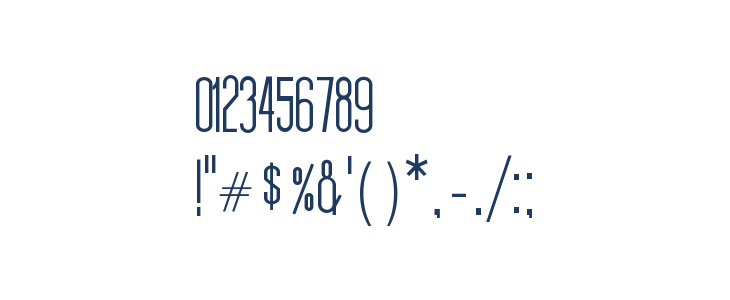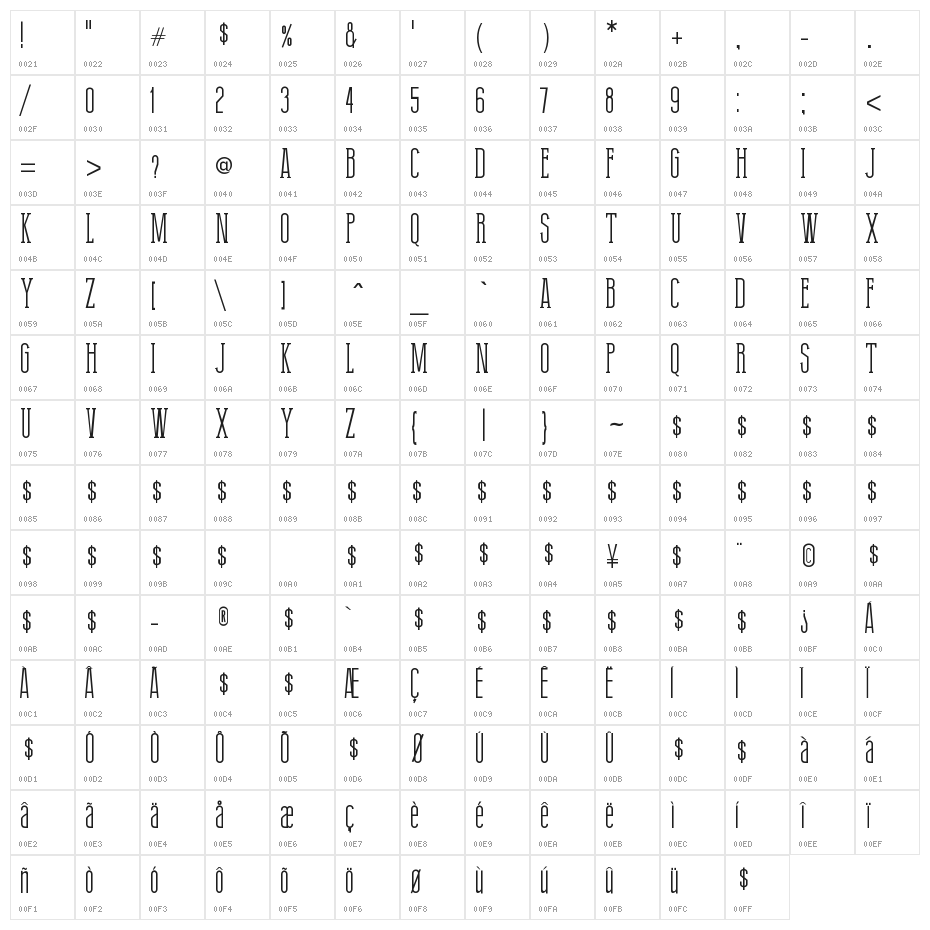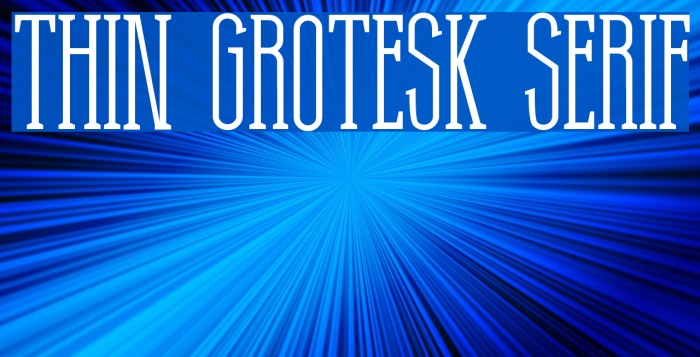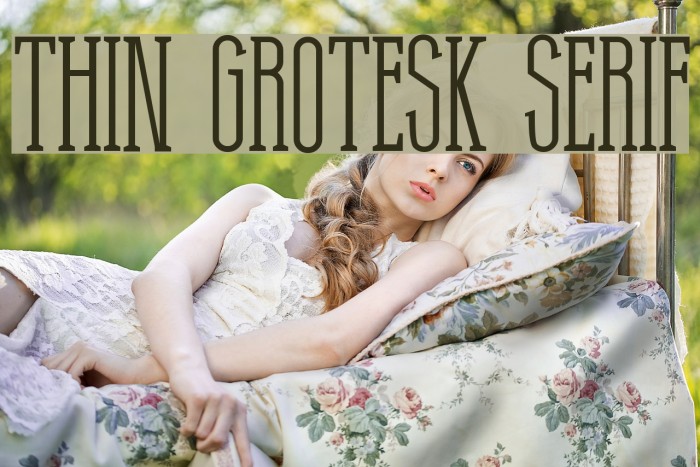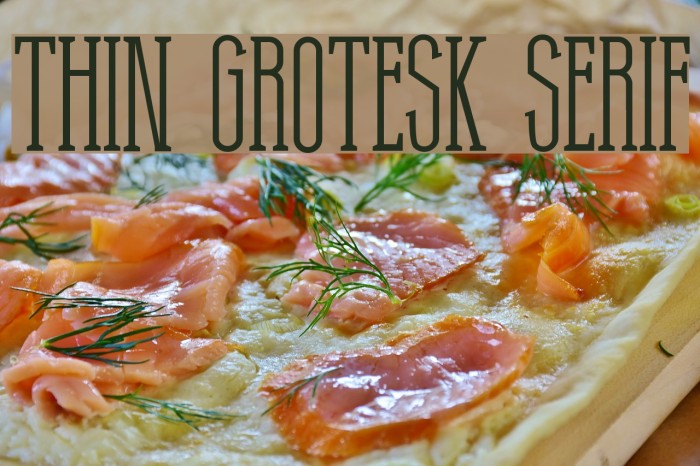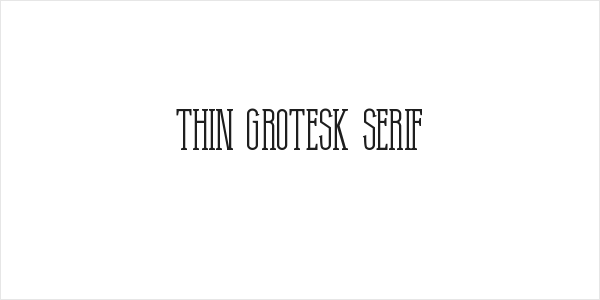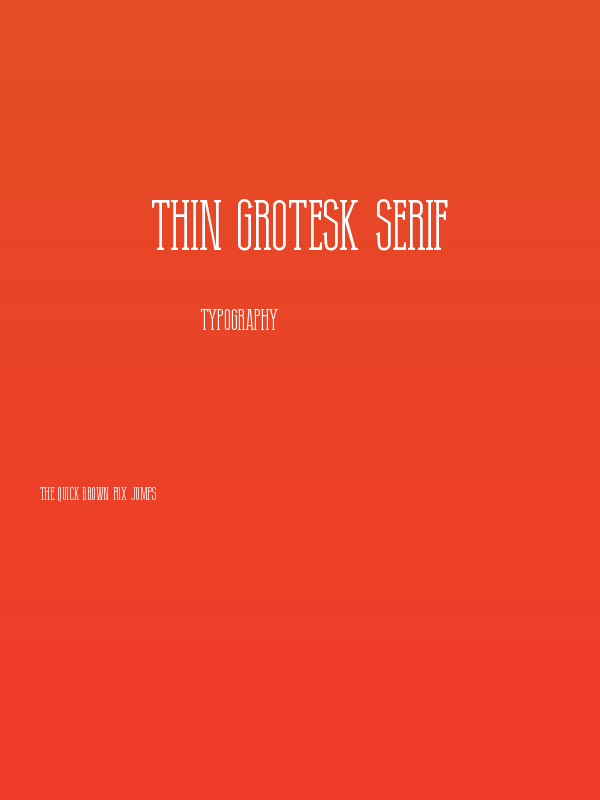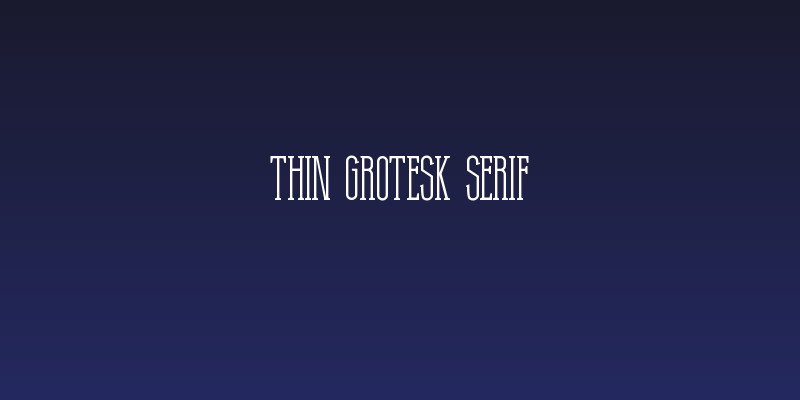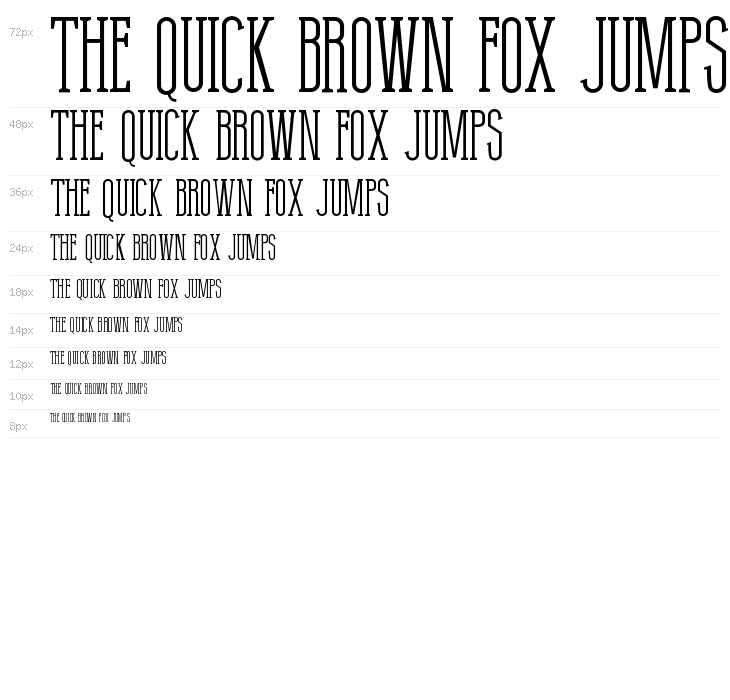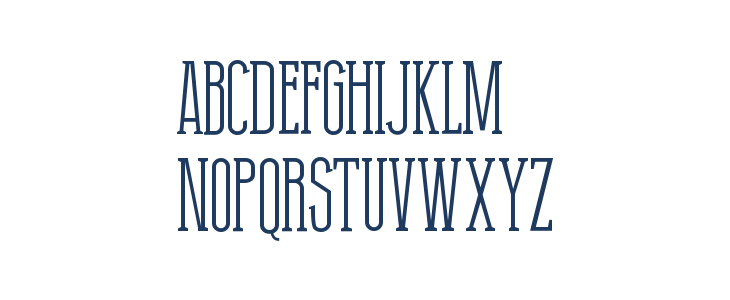
Thin Grotesk Serif Font
Thin Grotesk Serif Description
This font features a unique blend of thin, elongated characters with a subtle serif touch, giving it a modern yet classic appeal. The uppercase letters are tall and narrow, while the lowercase letters maintain a consistent height, providing a harmonious balance. Numbers are clear and legible, with a slight curvature that adds to the overall elegance. Special characters are distinct and well-defined, ensuring versatility across various applications. The font's thin strokes and minimal serifs make it ideal for projects that require a sophisticated and clean look.